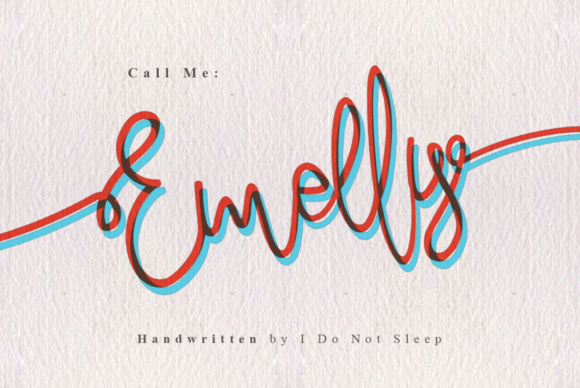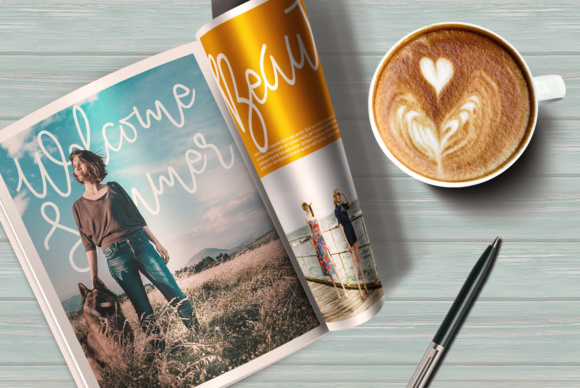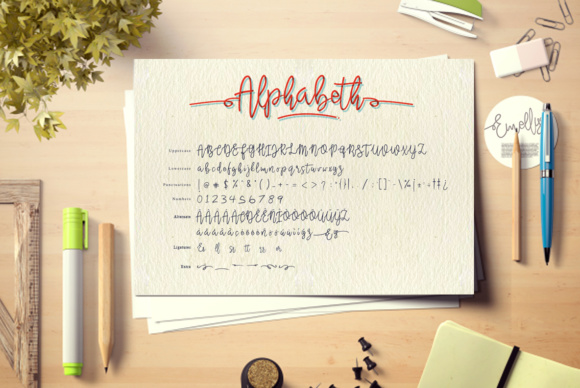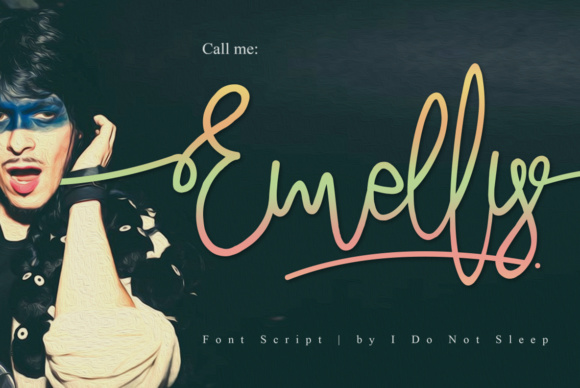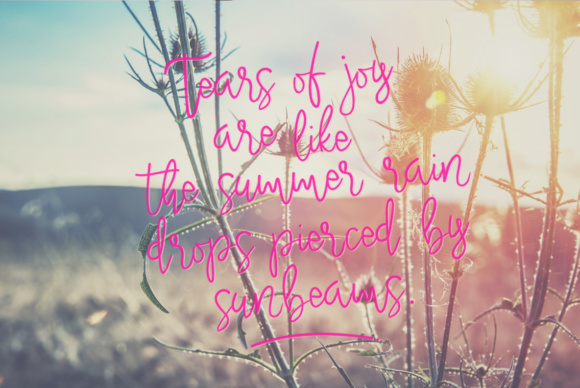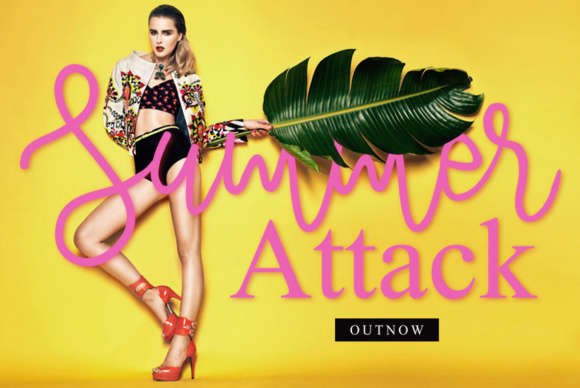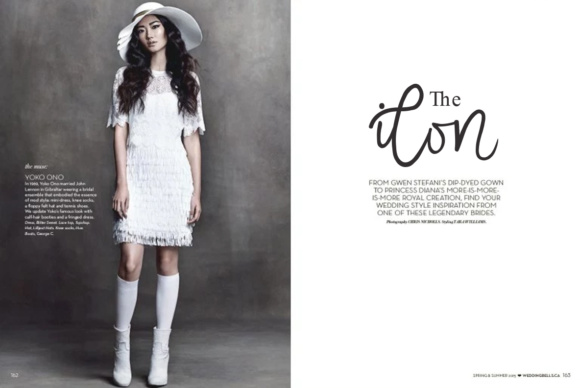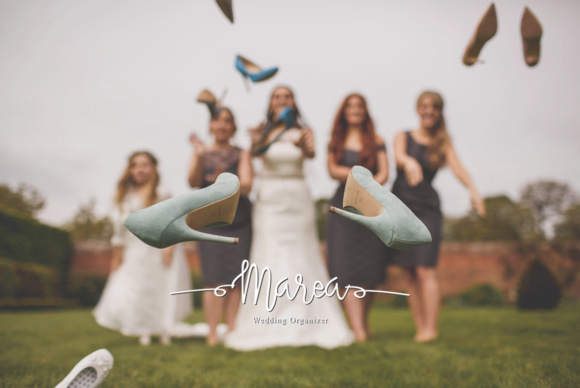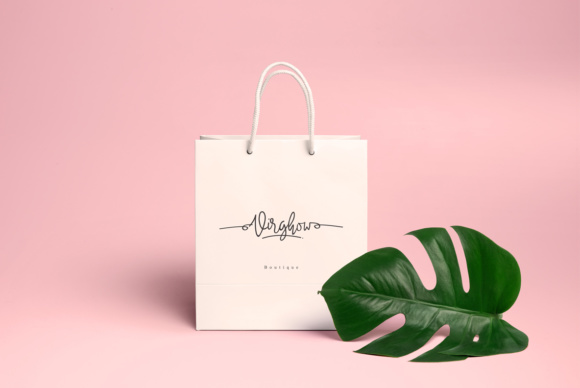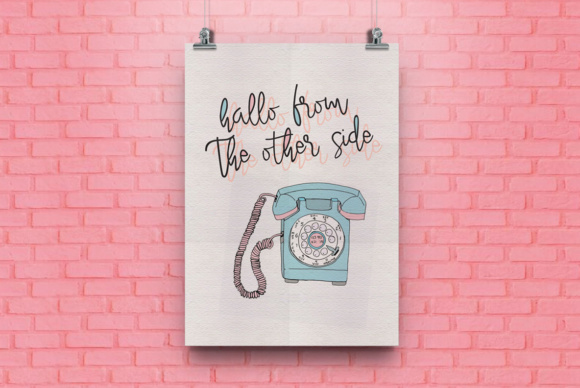
Emelly Font
About Emelly Font
With a stylish, clean outline, Emelly offers you a beautiful typographic harmony. Emelly is designed to work as a perfect companion or simply as a strong standalone. Emelly can be used for various purposes such as: logos, watermarks, wedding designs, social media posts and much more!